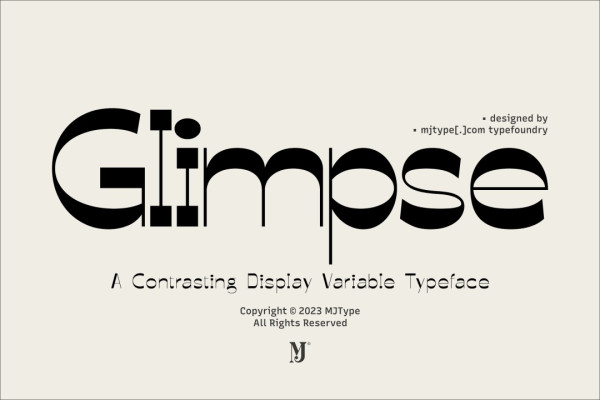
Glimpse Font Family
Glimpse Font Family, with its reverse contrast approach, offers a new display font. It allows designers to play with visual hierarchy in creative ways, using variable weights to enhance different text elements. Despite their distinct weight, each font in the family maintains a cohesive look.